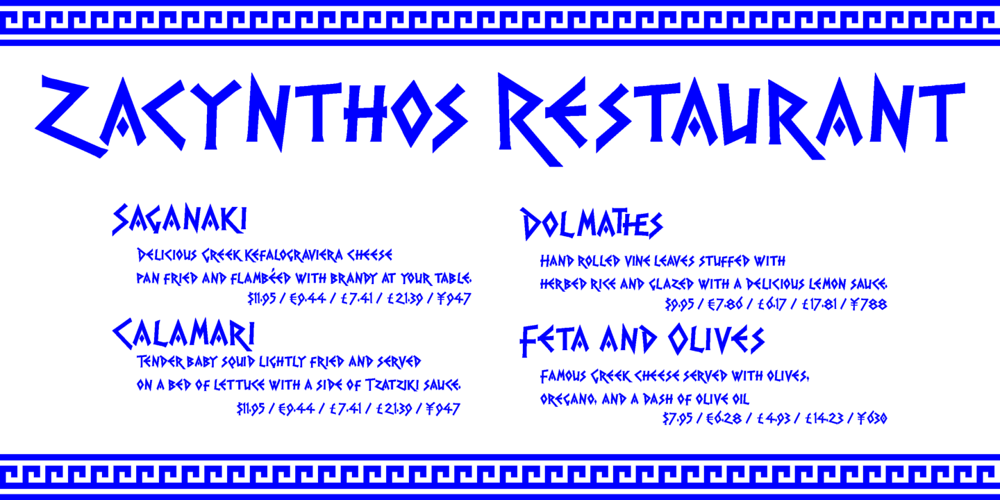
PR Hydra Font Family was designed by Peter Rempel and published by PR Fonts. PR Hydra contains 2 styles and family package options. A sequel to my own Herakles font, with multiple faces, and more to come, so the name refers to his second labor, slaying the Hydra. The straight lines and sharp angles make it suitable for evoking the feel of many ancient civilizations where writing was cut into stone. Whether your heroic deeds include slaying mythical monsters, or making the best spanakopita in the city, this font is for you.